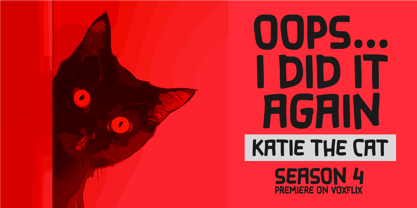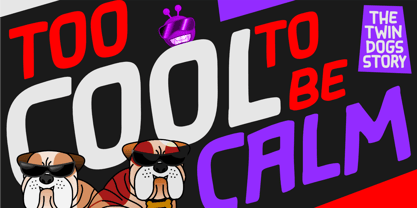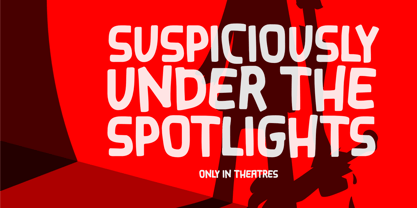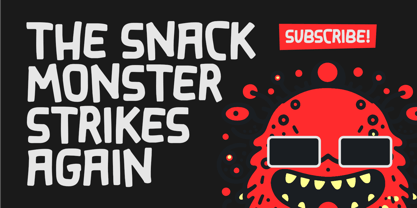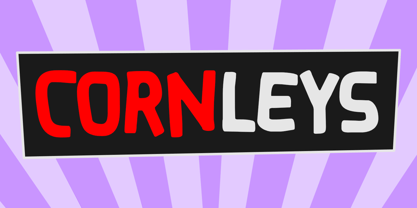
Cornleys
by Epiclinez
The Cornleys Font Family was designed by Aldy Sidik and published by Epiclinez. Cornleys contains 1 styles. More about this family
Cornleys is a bold and playful ALL CAPS cartoon display font packed with attitude, energy, and a touch of mischievous swag. Designed to stand out, its chunky shapes and expressive letterforms bring a lively personality to every word, making it perfect for eye-catching designs that demand attention. Cornleys brings big playful vibes with its bouncy shapes and exaggerated style. It’s perfect for kids stuff, comic titles, snack packaging, toy brands, YouTube thumbnails, or anything that needs to pop and feel alive. Whether you’re going silly, a little chaotic, or just having fun, this font keeps things loud, cheerful, and full of personality. Cornleys isn’t just a font—it’s a statement of fun, freedom, and fearless creativity. Turn up the volume, embrace the chaos, and let your designs speak louder than ever.